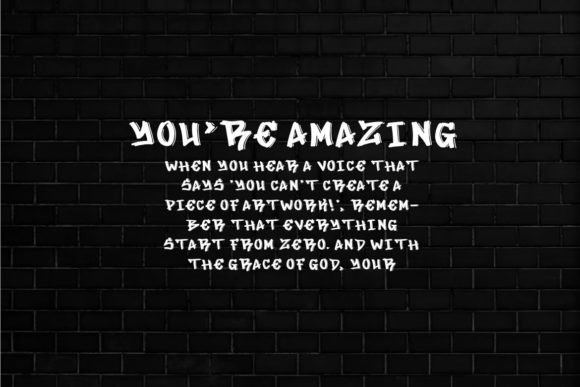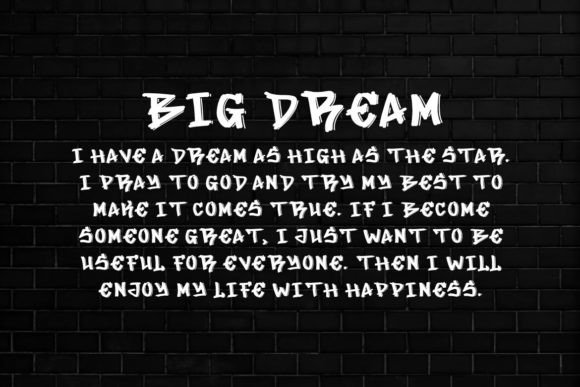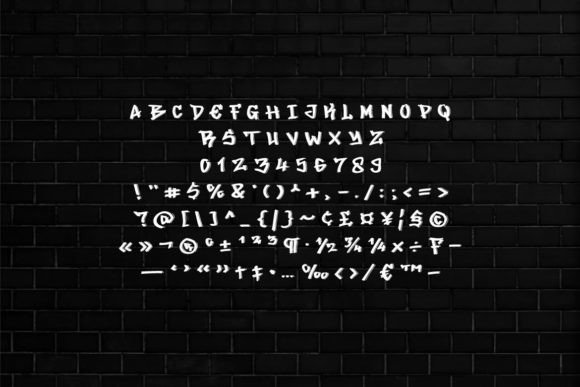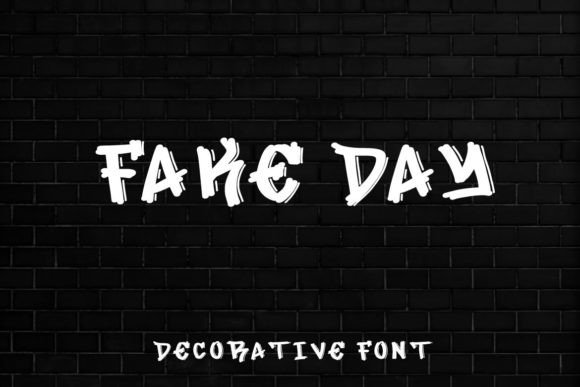
Discover the Edgy Charm of Fake Day Font: Elevate Your Designs with a Street Art Style
Are you on the hunt for a font that embodies the raw, unbridled energy of street art? Look no further than the Fake Day font! This bold, eye-catching typeface is perfect for designers and crafters seeking to infuse their work with a rebellious, urban vibe. From logos and wall art to apparel branding and team logos, Fake Day can be used in a wide range of creative projects to add a touch of edginess and sophistication.
The Inspiration Behind Fake Day
Fake Day is a font that draws inspiration from the vibrant, dynamic world of street art. Its unique design is characterized by bold lines, sharp angles, and a distinctive charm that sets it apart from more traditional typefaces. Whether you’re looking to create a logo that demands attention or a piece of wall art that sparks conversation, Fake Day is the perfect choice.
Key Features of Fake Day Font
• Street Art Style: Fake Day boasts a bold, street art-inspired design that’s perfect for creating eye-catching logos, posters, and other visual materials.
• Versatility: This font can be used in a wide range of creative projects, from apparel branding and team logos to wall art and more.
• Ease of Use: Fake Day is easy to read and works well in both digital and print formats, making it a versatile addition to your design toolkit.
• Unique Character: With its bold lines and sharp angles, Fake Day has a distinctive charm that sets it apart from more traditional typefaces.
Uses of Fake Day Font
Fake Day is an incredibly versatile font that can be used in a wide range of creative projects. Here are just a few ideas to get you started:
• Logo Design: Create a bold, eye-catching logo that demands attention with Fake Day.
• Wall Art: Use Fake Day to create striking pieces of wall art that add a touch of urban chic to any room.
• Apparel Branding: Add a touch of edginess to your apparel branding with Fake Day’s bold, street art-inspired design.
• Team Logos: Create a team logo that stands out from the crowd with Fake Day’s unique character.
• Social Media Graphics: Use Fake Day to create eye-catching social media graphics that help your brand stand out.
• Posters and Flyers: Create bold, attention-grabbing posters and flyers with Fake Day.
Tips for Using Fake Day Font
To get the most out of Fake Day, here are a few tips to keep in mind:
• Experiment with Colors: Fake Day looks great in a wide range of colors, so don’t be afraid to experiment and find the perfect hue for your design.
• Play with Typography: Fake Day works well with a variety of typography styles, so feel free to get creative and try out different combinations.
• Keep it Simple: While Fake Day is a bold font, it’s best to keep your design simple and uncluttered to really make it pop.